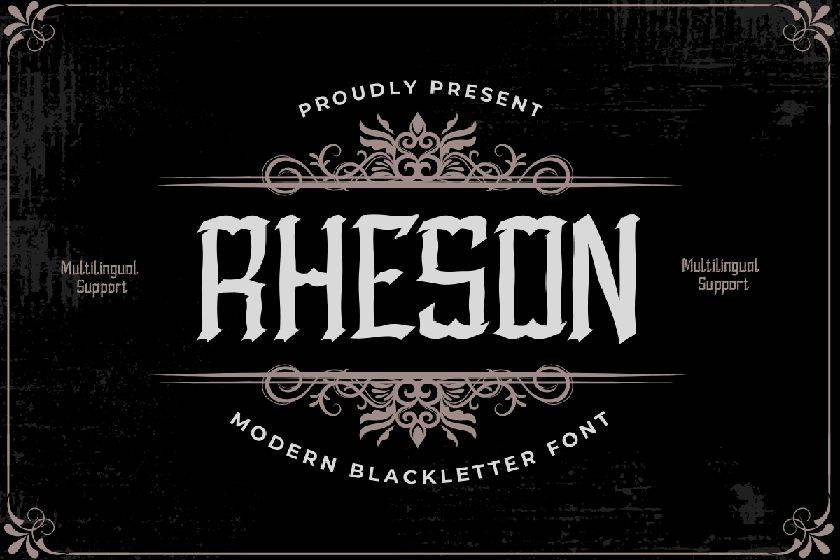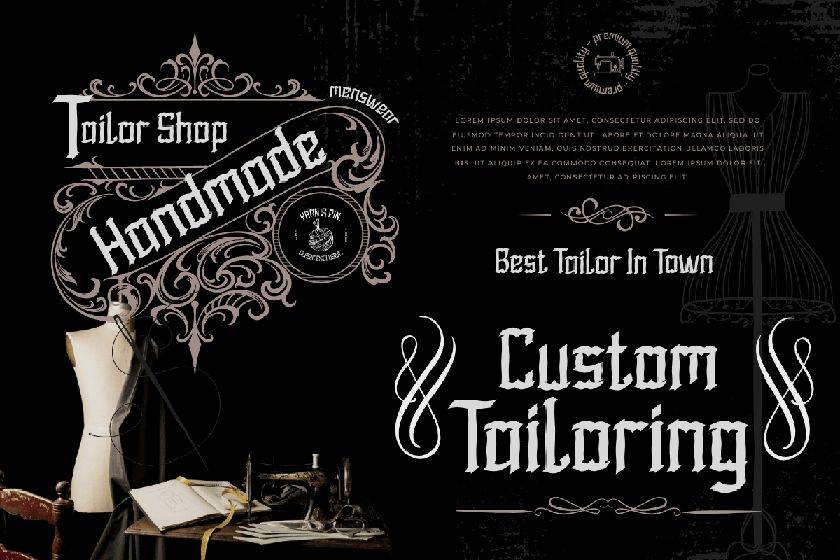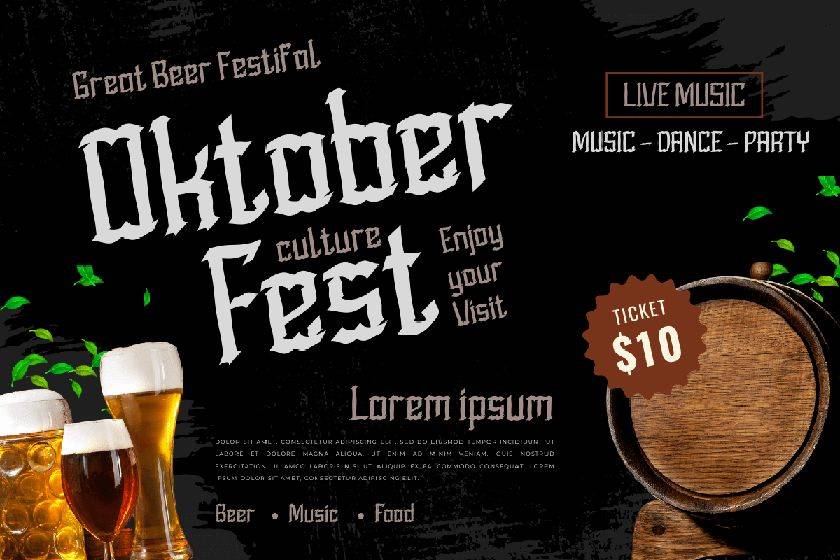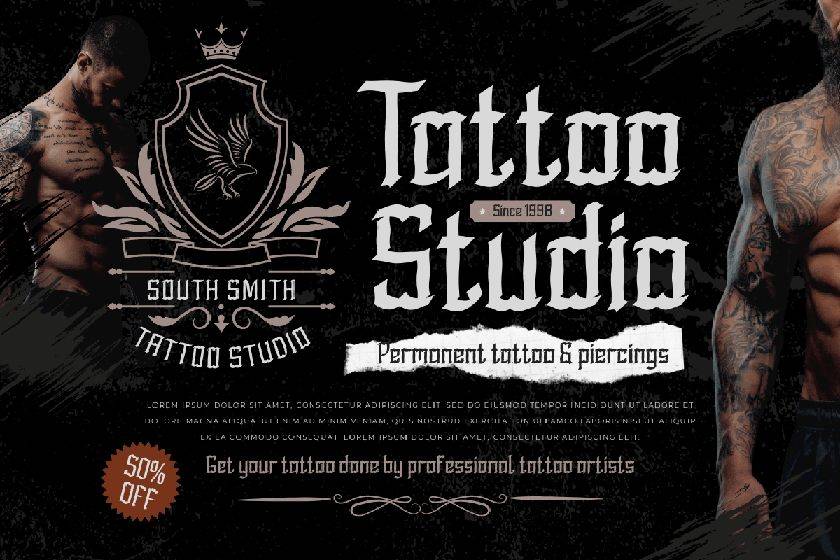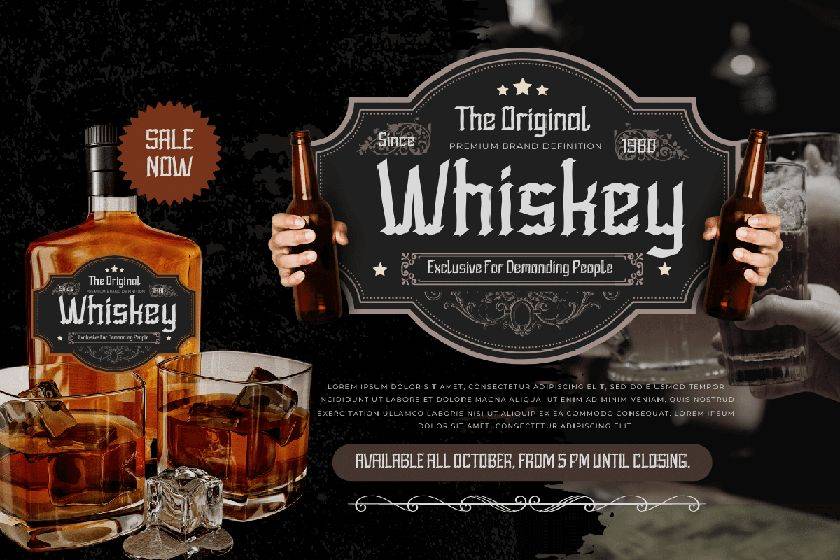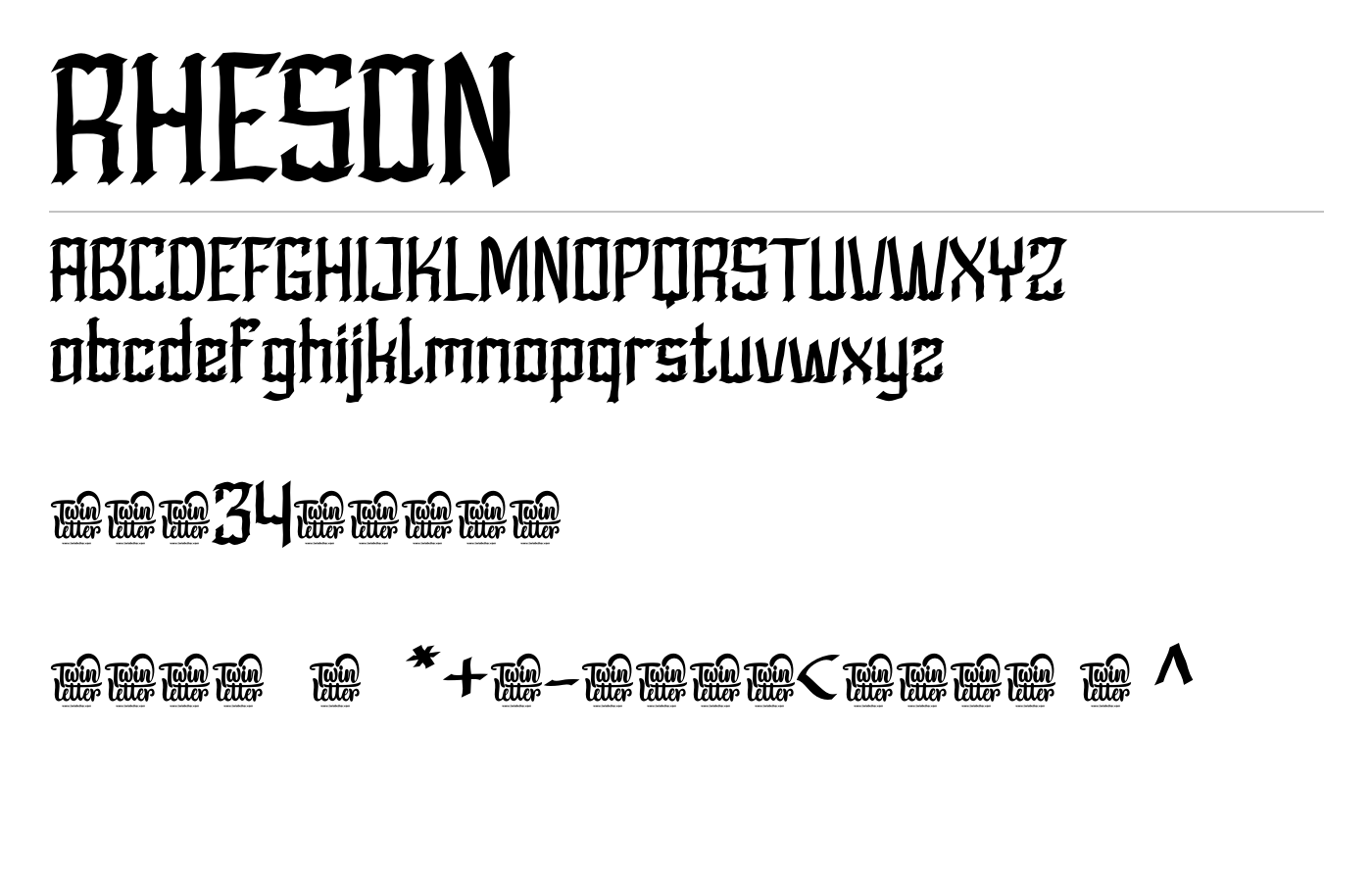
Rheson is a distinctive blackletter-style font characterized by sharp, angular strokes and high contrast between thick and thin lines, evoking a bold, gothic aesthetic. With its condensed letterforms and decorative edges, it blends vintage medieval charm with modern edge, making it ideal for striking headlines, logos, and creative designs seeking a dramatic and edgy vibe. This font works best in display contexts where its intricate personality can shine without sacrificing legibility.
Rheson Font
About Rheson Font